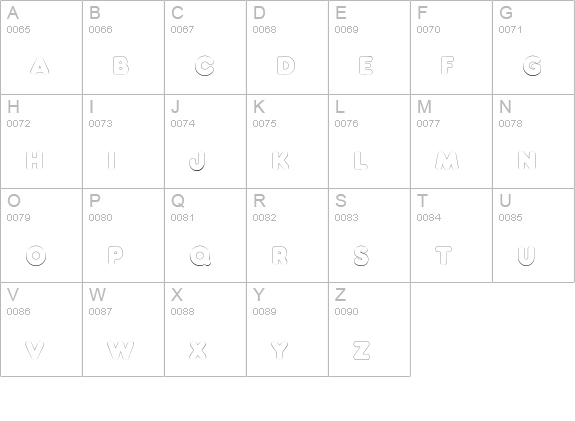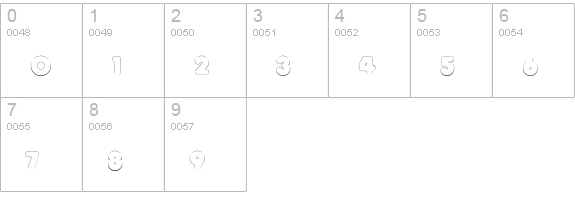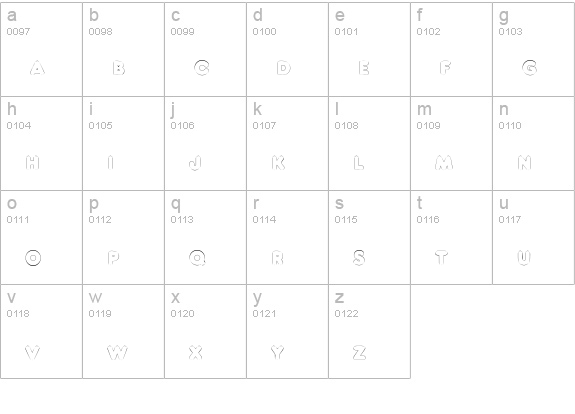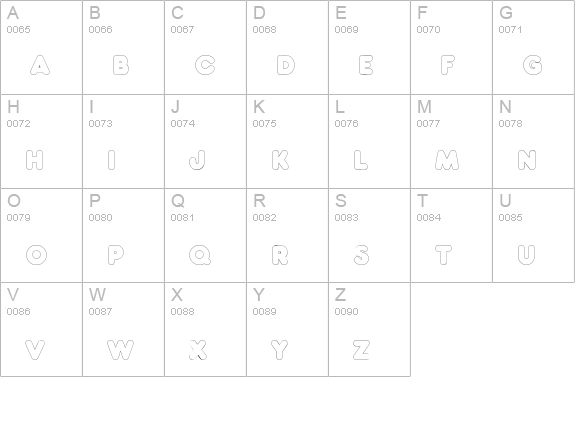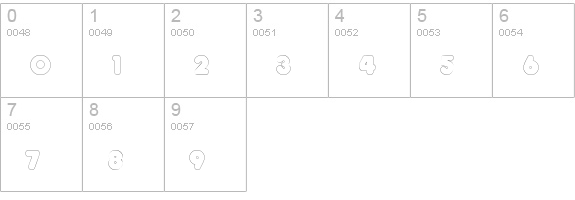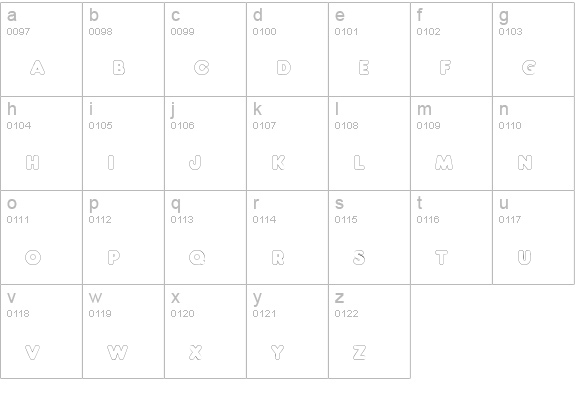
NeonOutline Font Details
NeonOutline font is a striking and eye-catching typeface that adds a futuristic and vibrant touch to any design project. With its bold outlines and neon-inspired style, this font is perfect for creating modern and edgy designs that demand attention. The clean lines and sleek design of NeonOutline make it a versatile choice for a variety of projects, from posters and banners to logos and branding materials. The best part? NeonOutline font is completely free to download at FontsMarket.com. Whether you're a designer looking to add a pop of color to your creations or a business owner in need of a fresh new look, NeonOutline font is the perfect choice. Download it today and start creating stunning designs that are sure to stand out from the crowd.